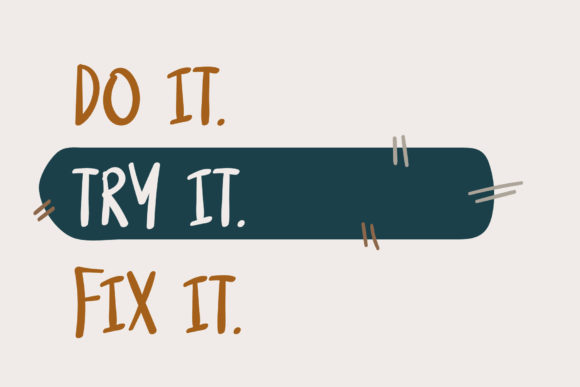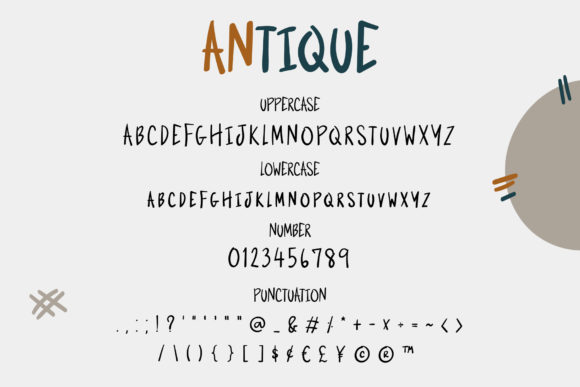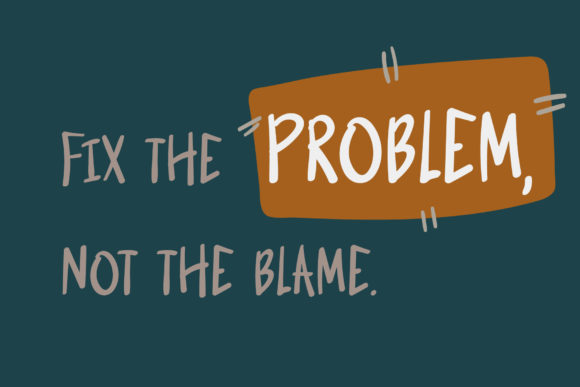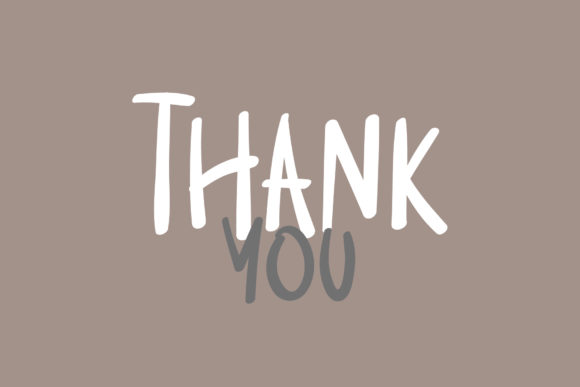
The Timeless Charm of Antique Font: Elevate Your Designs with a Bold Handwritten Style
In the world of typography, few fonts manage to capture the essence of elegance and simplicity as effectively as the Antique font. This bold handwritten font has been carefully crafted to become a true favorite among designers and crafters alike. Its casual charm makes it appear wonderfully down-to-earth, readable, and incredibly versatile. Whether you’re working on a busy background or looking to create a stunning standalone headline, Antique font is sure to impress.
The Unique Characteristics of Antique Font
Antique font boasts a distinctive, handcrafted style that sets it apart from more traditional fonts. Its bold, yet elegant lines make it perfect for a wide range of design applications, from rustic wedding invitations to eye-catching posters and flyers. The font’s casual charm is effortlessly readable, even at smaller sizes, making it an excellent choice for body text or captions.
One of the standout features of Antique font is its incredible versatility. It can be used in a variety of contexts, from formal to informal, and still manage to look outstanding. Whether you’re creating a sophisticated logo or a playful greeting card, Antique font is sure to bring a touch of timeless charm to your design.
The Benefits of Using Antique Font in Your Designs
So, why should you choose Antique font for your next design project? Here are just a few benefits of using this beautiful font:
- Readability: Antique font is incredibly easy to read, even at smaller sizes. This makes it perfect for body text, captions, or any other application where legibility is key.
- Versatility: Antique font can be used in a wide range of design applications, from formal to informal. Its casual charm makes it perfect for rustic or vintage-themed designs, while its bold lines ensure it stands out in more modern contexts.
- Elegance: Antique font boasts a timeless elegance that makes it perfect for high-end designs. Its bold lines and classic style ensure it will never go out of fashion.
Tips for Using Antique Font Effectively
To get the most out of Antique font, here are a few tips to keep in mind:
- Pair it with contrasting fonts: Antique font pairs beautifully with contrasting fonts, such as sleek sans-serif fonts or elegant script fonts. Experiment with different combinations to find the perfect look for your design.
- Use it for headlines and titles: Antique font is perfect for headlines and titles, where its bold lines and classic style can really shine.
- Experiment with colors and textures: Antique font looks stunning in a variety of colors and textures. Experiment with different combinations to find the perfect look for your design.
Who Can Benefit from Using Antique Font?
Antique font is perfect for a wide range of designers and crafters, including:
- Graphic designers: Antique font is a versatile and elegant font that’s perfect for a wide range of graphic design applications, from logos and branding to posters and flyers.
- Wedding planners and stationery designers: Antique font is a popular choice for wedding invitations, stationery, and other paper goods. Its classic style and elegant lines make it perfect for formal and informal weddings alike.
- Crafters and DIY enthusiasts: Antique font is a great choice for crafters and DIY enthusiasts who want to add a touch of elegance and sophistication to their projects.
In conclusion, Antique font is a timeless and versatile font that’s perfect for designers and crafters alike. Its bold handwritten style, casual charm, and incredible readability make it a true favorite among typography enthusiasts. Whether you’re working on a formal or informal design project, Antique font is sure to bring a touch of elegance and sophistication to your work.